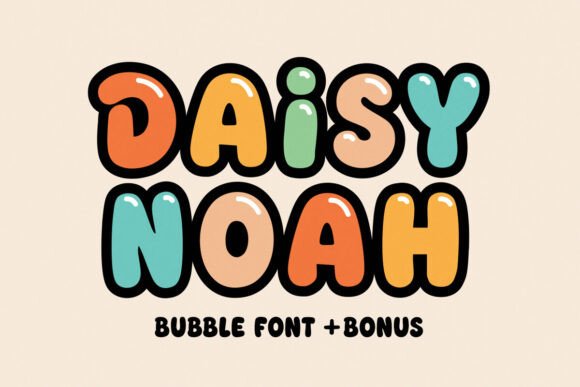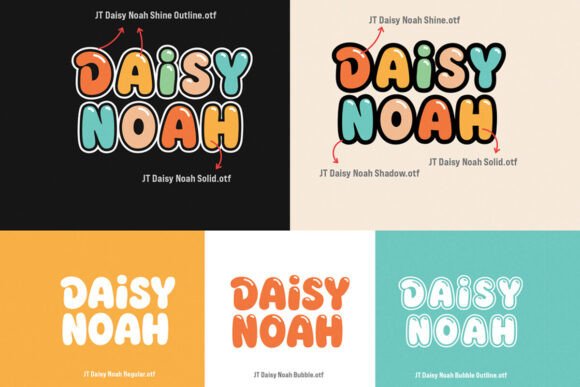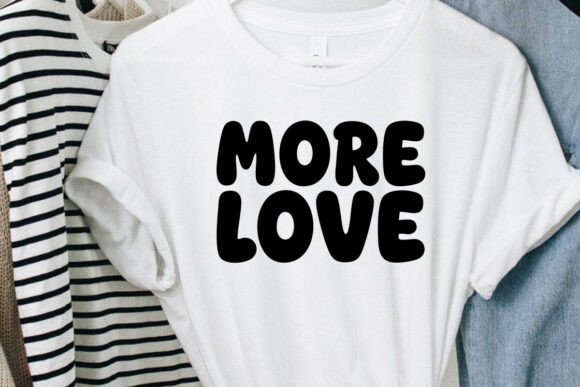
Daisy Noah Font: Retro Bubble Display Font for Playful Designs!
About the Daisy Noah Font
Crafted with precision, the Daisy Noah Font is ready to bring your ideas to life. Daisy Noah is a bubble, groovy, bubbly retro, boho, and fun 70s display font. Whether you’re using it for crafts, digital design, presentations, or making greeting cards, this font has the potential to become your favorite, no matter the occasion! It is the best choice for creating eye-catching logos, branding, and quotes. Add it to your most creative ideas, and notice how it makes them come alive!
Daisy Noah’s playful, retro style is ideal for headlines, short text blocks, logos, and branding projects needing a 70s vibe. It excels in creating eye-catching posters, social media graphics, and packaging for products targeting a younger, trend-conscious audience. However, its highly stylized nature makes it unsuitable for body text or UI elements requiring high readability.
Consider pairing Daisy Noah with a clean sans-serif like Open Sans for a balanced contrast, or a classic serif such as Garamond for a more sophisticated feel. A geometric sans-serif like Futura would add a modern edge, while a script font could enhance its retro charm depending on the desired effect.
The font’s core personality is undeniably fun and bold, radiating a sense of carefree energy and retro optimism. It’s best suited for brands and projects that aim for a nostalgic yet vibrant aesthetic.
Daisy Noah Font Usage Examples
Daisy Noah Font Example